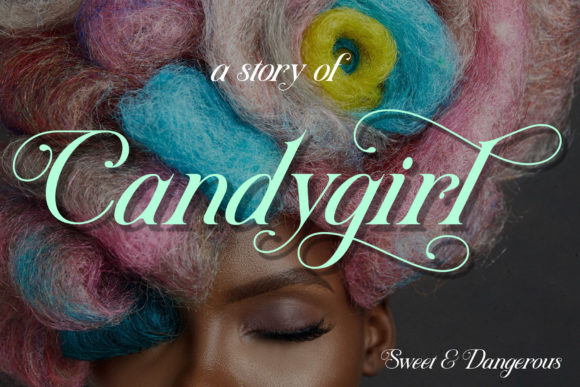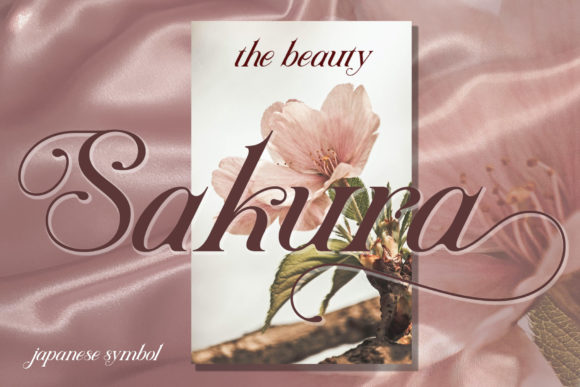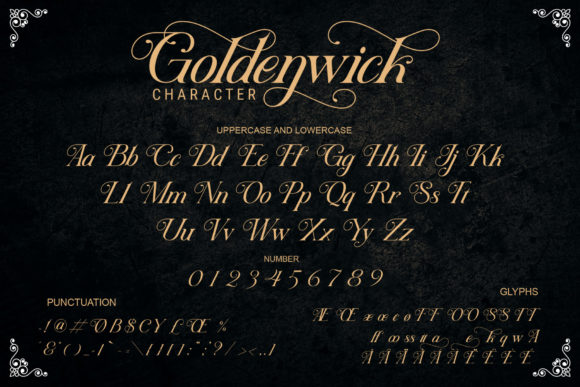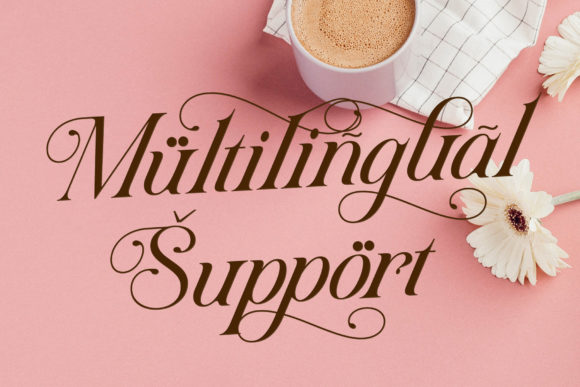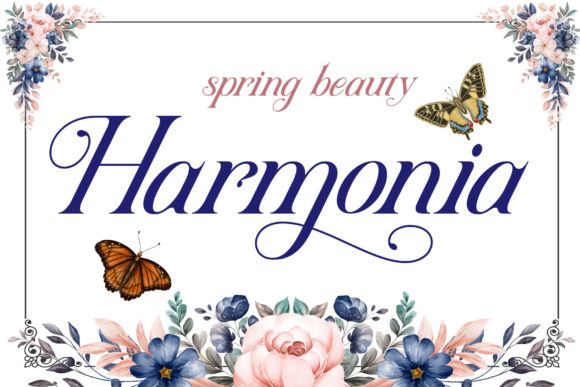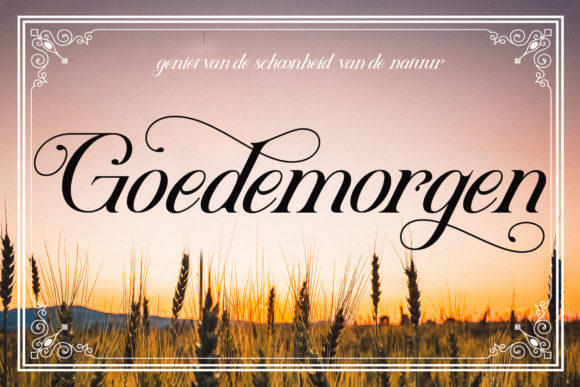
Introducing Goldenwick Font: Elevate Your Designs with a Touch of Elegance
In the world of design, typography plays a crucial role in conveying the message and aesthetic of a project. Among the myriad of fonts available, serif fonts have always been a favorite among designers for their classic and sophisticated appeal. If you’re on the hunt for a unique serif font that can add a natural touch to your creative endeavors, look no further than Goldenwick Font. Specially handcrafted with attention to detail, Goldenwick is poised to become the go-to choice for designers seeking to infuse their projects with a sense of elegance and distinctiveness.
The Essence of Goldenwick Font
Goldenwick is not just another serif font; it’s a meticulously crafted typeface designed to bring a natural and organic feel to your designs. Its unique characteristics make it an excellent choice for a wide range of applications, from logos and labels to packaging products, invitations, and advertising pamphlets. The font’s design ensures that it stands out in a crowd, offering a fresh alternative to more traditional serif fonts.
Why Choose Goldenwick?
- Unique and Original: In a sea of generic fonts, Goldenwick offers a breath of fresh air with its distinctive style that can make your designs look spectacular and unique.
- Versatility: Whether you’re working on a logo, product packaging, or an invitation, Goldenwick’s versatility ensures it fits perfectly with your project’s needs.
- Elegance and Sophistication: The serif details in Goldenwick add a touch of elegance and sophistication, making it ideal for designs that require a classy look.
- Natural Feel: The handcrafted nature of Goldenwick gives it a natural feel that can make your designs more approachable and engaging.
Applications of Goldenwick Font
The possibilities are endless with Goldenwick. Here are some of the top applications where Goldenwick can make a significant impact:
- Logo Design: A logo is the face of your brand, and with Goldenwick, you can create a memorable and impactful logo that stands out.
- Product Packaging: Make your product packaging more appealing and distinctive with Goldenwick, ensuring it captures the essence of your brand.
- Invitations and Cards: Add a touch of elegance to your invitations, greeting cards, and other personal projects with Goldenwick’s sophisticated look.
- Advertising Materials: Whether it’s a brochure, flyer, or pamphlet, Goldenwick can help your advertising materials look more professional and captivating.
Tips for Using Goldenwick Effectively
To get the most out of Goldenwick, consider the following tips:
- Pair with Sans-Serif Fonts: For a dynamic look, pair Goldenwick with sans-serif fonts to create a visually appealing contrast.
- Experiment with Sizes: Don’t be afraid to experiment with different font sizes to create a hierarchy and add depth to your designs.
- Adjust Line Spacing: Adjusting the line spacing can significantly affect readability, especially in longer texts.
Goldenwick Font is a game-changer for designers looking to add a natural, elegant touch to their projects. Its unique design, versatility, and the ability to make any project stand out make it an invaluable asset in your design toolkit. Whether you’re a professional designer or a crafting enthusiast, Goldenwick is sure to exceed your expectations and help you achieve the look you’ve envisioned. So, why settle for ordinary when you can create something extraordinary with Goldenwick?